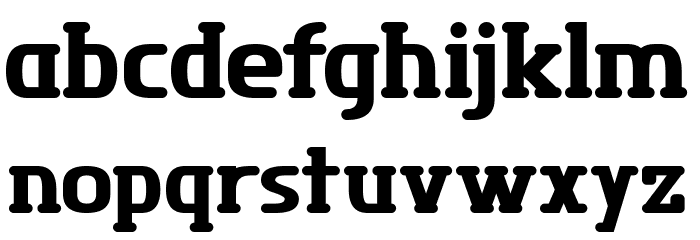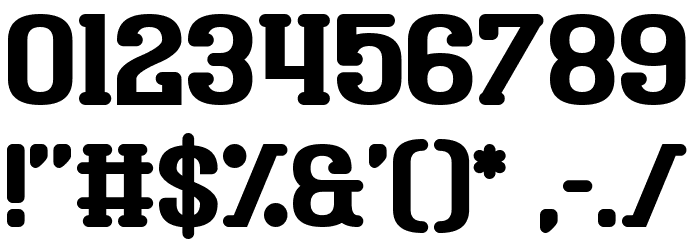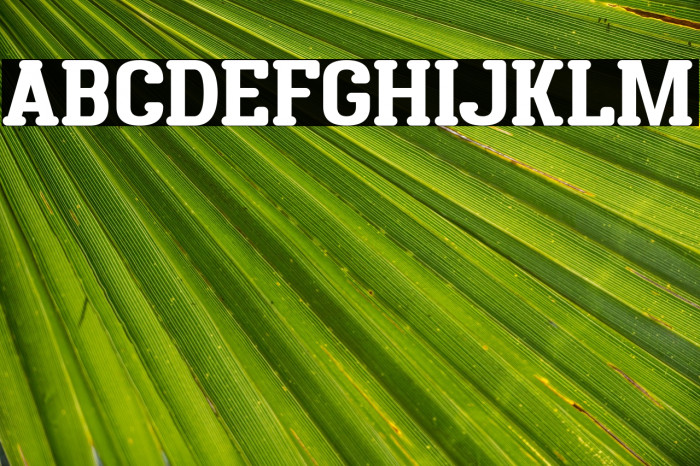
District Four Font
This font features a bold and robust slab serif style, characterized by thick, block-like serifs and a strong presence. The uppercase letters are uniform in height, providing a sense of stability and balance, while the lowercase letters maintain a consistent x-height, ensuring readability. The numerals are clear and distinct, with a slightly rounded appearance that adds a touch of softness to the otherwise strong design. Special characters are well-integrated, maintaining the overall bold aesthetic. The font's design is versatile, making it suitable for a variety of applications where a commanding and confident look is desired.
A bold slab serif font with strong, block-like serifs and a robust presence.
- Proposed Projects: Ideal for headlines, posters, branding, and any project requiring a strong, impactful typeface.